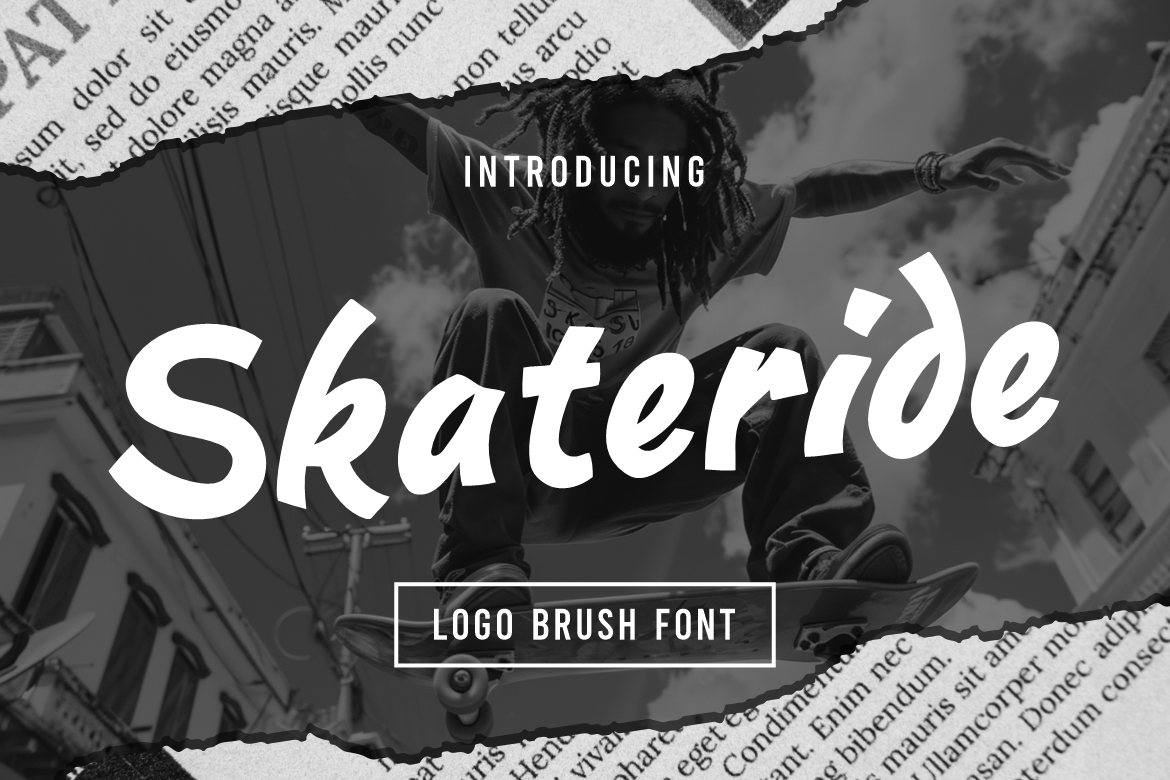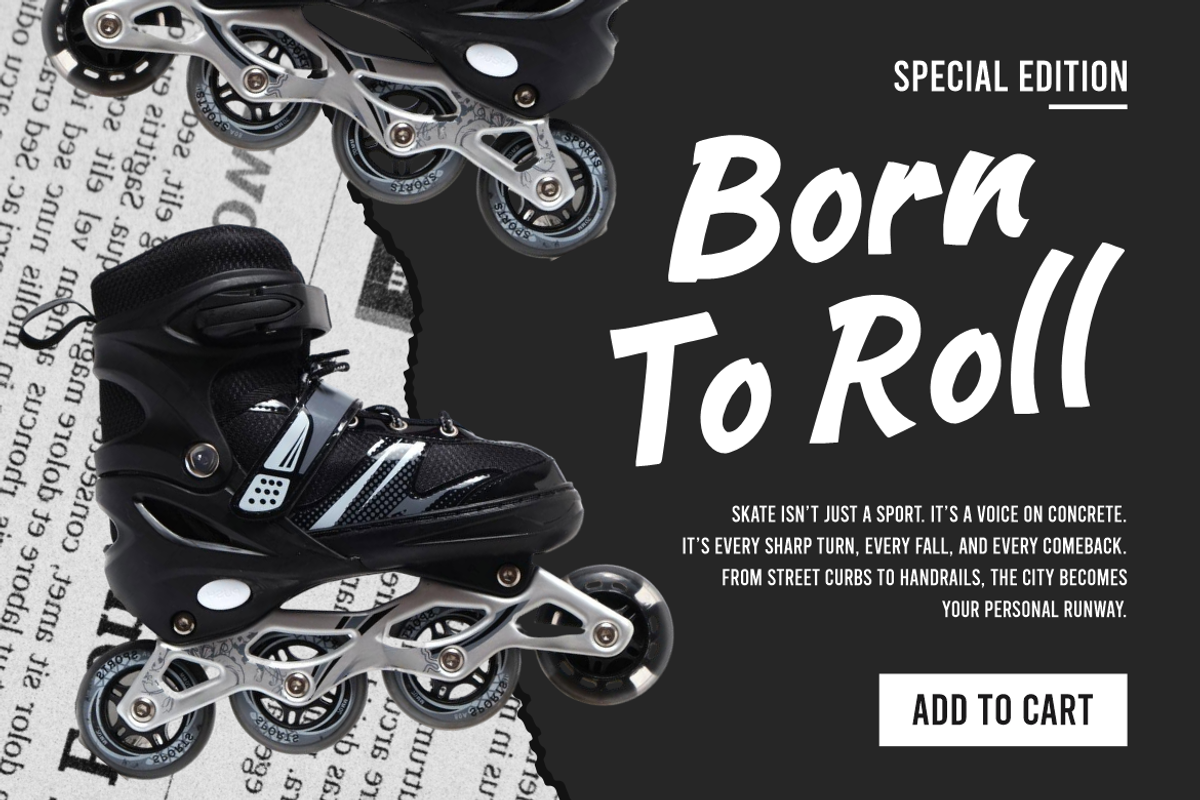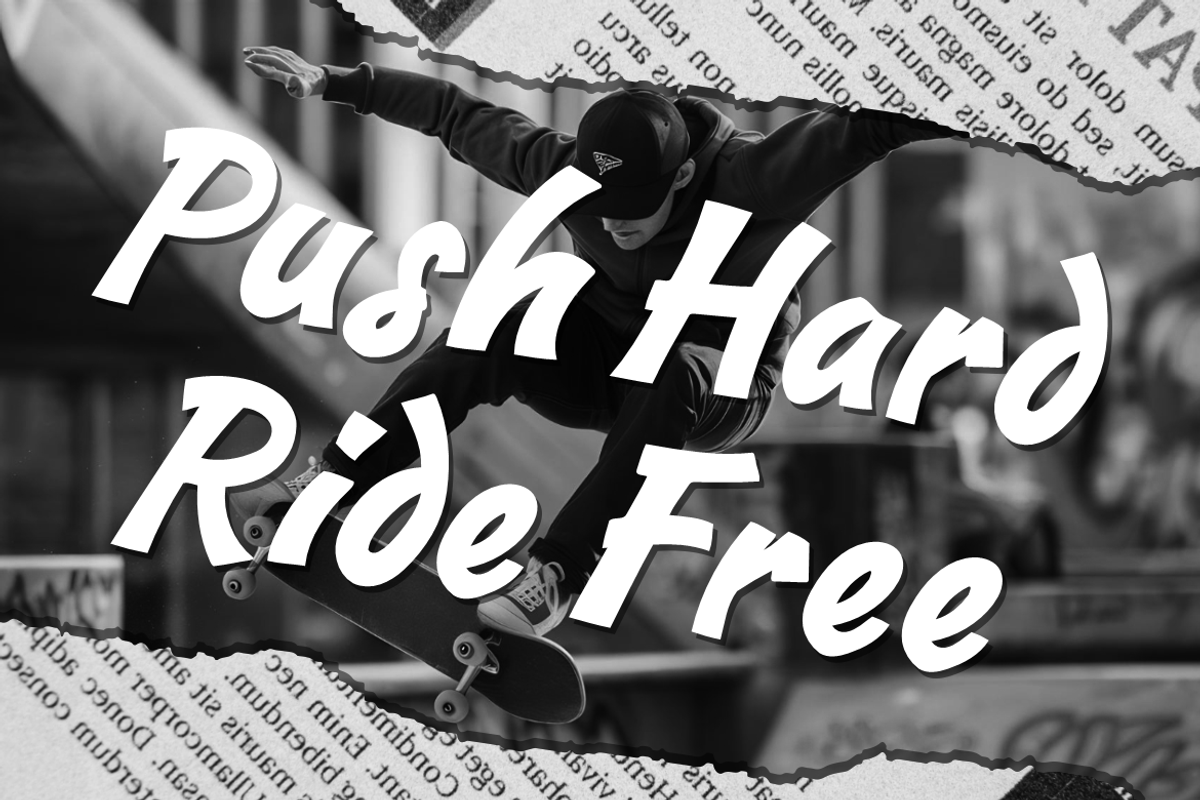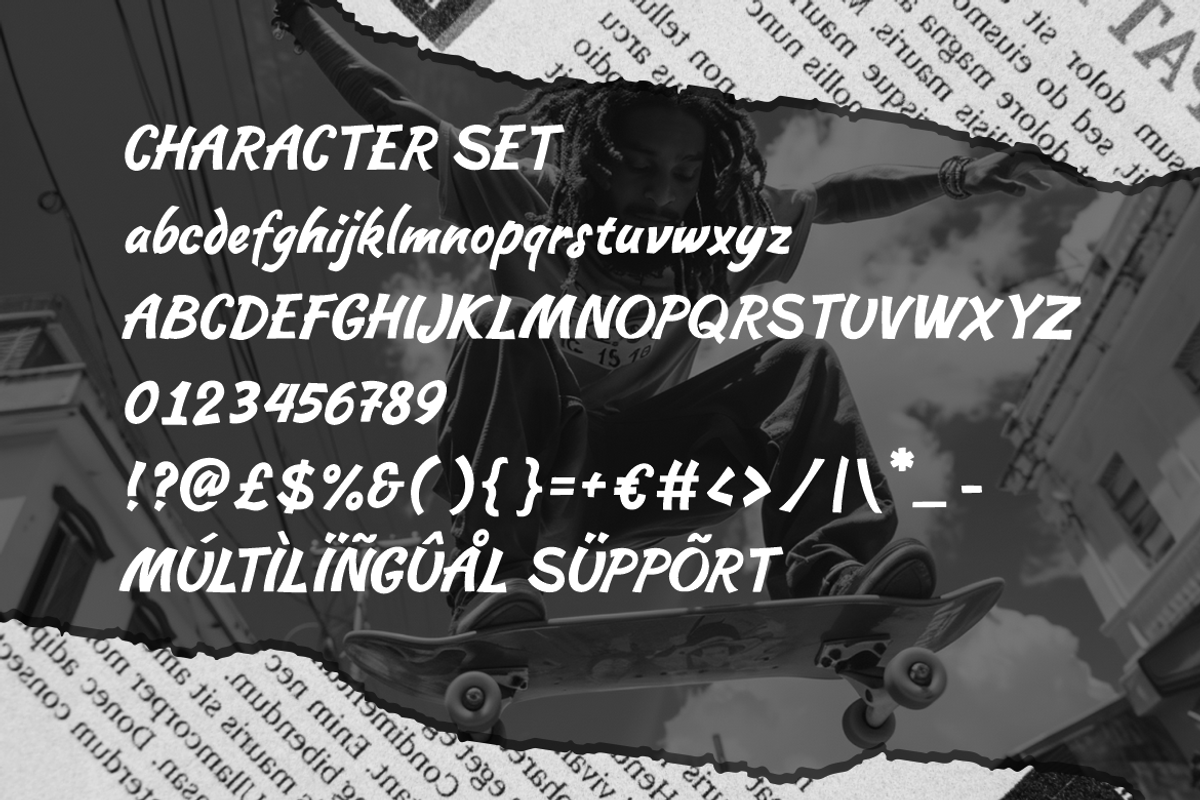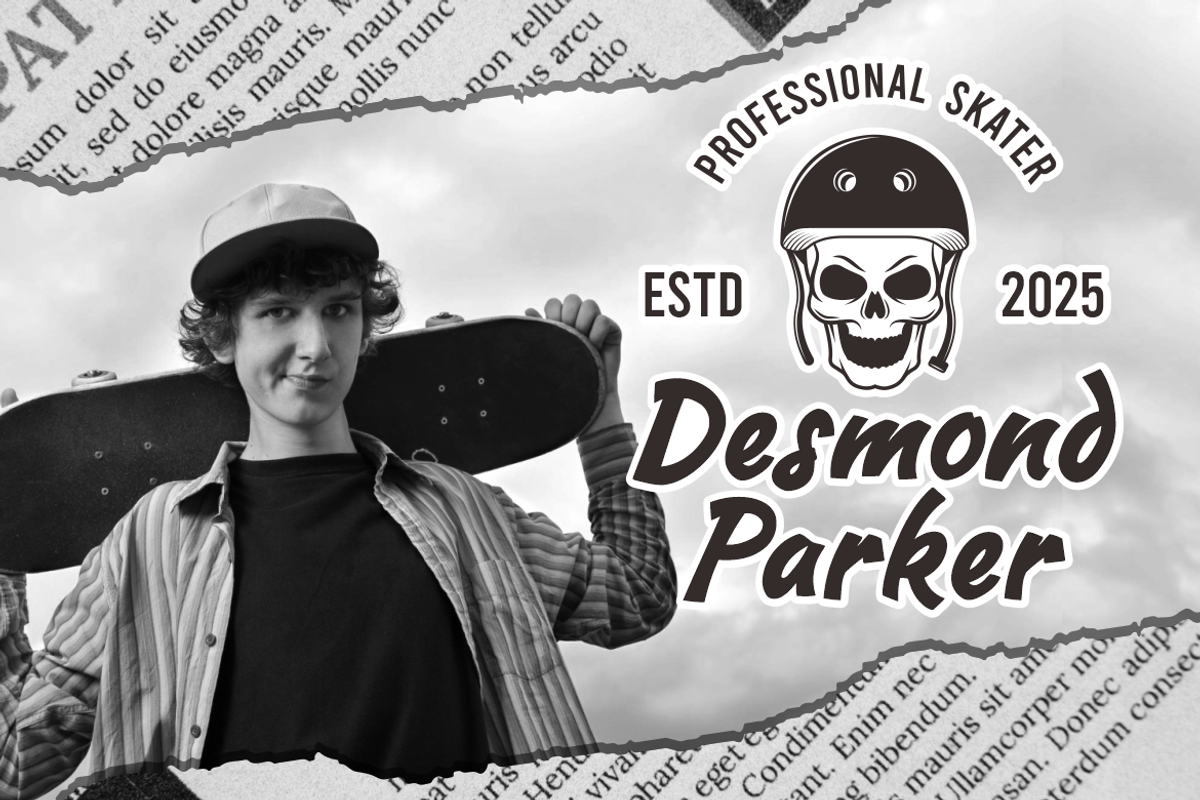
Skateride Logo Brush Font
Skateride Logo Brush Font is a dynamic and expressive brush typeface that captures the raw energy of street culture. Each letter features bold, hand-painted strokes with smooth curves and slightly angled cuts that add motion and personality. The font has a strong medium-to-thick weight, giving it a confident and rebellious tone while maintaining clear readability. Its design feels spontaneous yet well-balanced, mimicking the natural flow of real brush lettering. Skateride Logo Brush Font is the ideal blend of freedom, movement, and attitude—perfect for those who want to bring an edgy, modern flair to their work.
This font shines in logo design, apparel branding, posters, and social media visuals that need a bold street-style identity. It’s also suitable for skateboard brands, youth-oriented campaigns, product packaging, and event promotions. The handcrafted brush feel creates a sense of individuality, perfect for artists, creators, and designers who value authenticity. Skateride Logo Brush Font adds energy to any design while preserving a stylish professional touch. Whether for magazine covers, bold headlines, or urban artwork, this font brings a unique personality that speaks loud and moves fast.